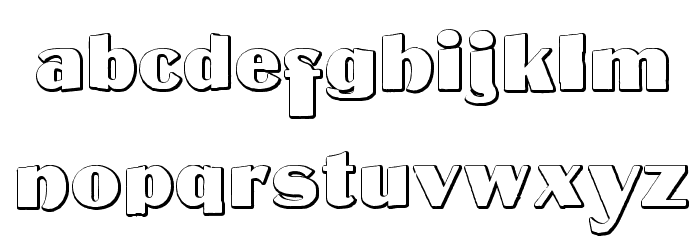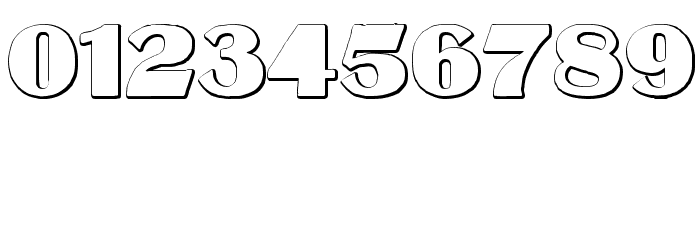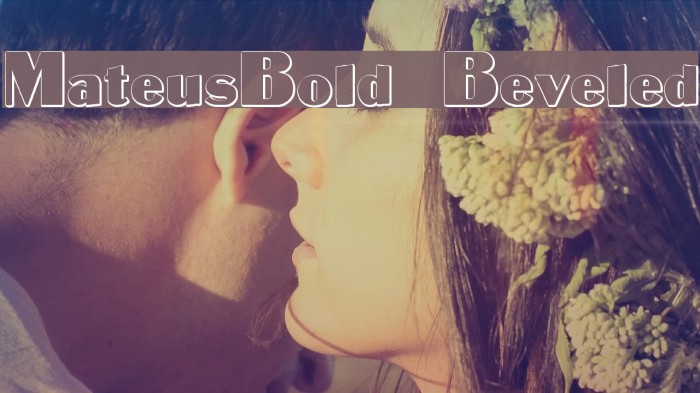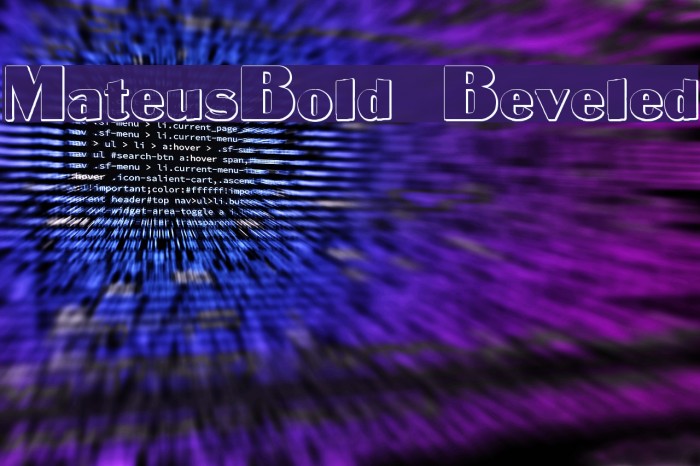
MateusBold Beveled Font
This font features a bold and beveled style, giving it a strong and impactful appearance. The uppercase and lowercase letters are designed with a three-dimensional effect, which adds depth and a sense of movement. The numerals and special characters maintain this beveled look, ensuring consistency across all glyphs. The font's bold weight and unique style make it stand out, making it suitable for attention-grabbing designs. The character spacing is normal, allowing for clear readability while maintaining its decorative appeal. The font's high contrast between the thick strokes and the beveled edges enhances its visual interest.
A bold, beveled font with a three-dimensional effect, perfect for impactful designs.
- Proposed Projects: Ideal for logos, headlines, posters, and any design requiring a bold statement.